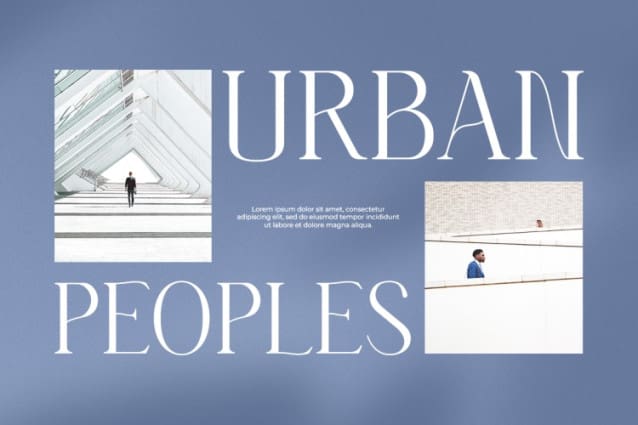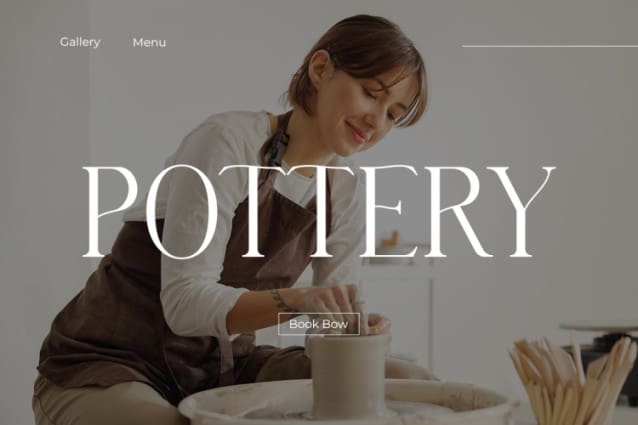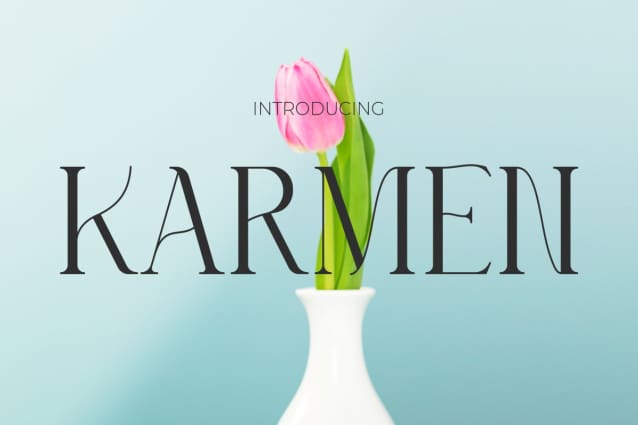
Karmen Font
Karmen Font – Elevate Your Brand with the Essence of Luxury. With elegance epitomizing luxury and perfection, it is the perfect manifestation of beauty in the world of typography. Designed with captivating detail, this font brings an unparalleled impression when used for enticing titles across various branding platforms. Every stroke and curve in its letters expresses grandeur, making every word formed with Karmen feel like a towering work of art. For brands seeking an identity reflecting exclusivity and sophistication, it is an undeniable choice.
When the eyes meet titles crafted with the Karmen font, there’s a sense of reverence that passes through. The elegance and firmness radiating from each character make your message unforgettable. More than just a font, it is a pathway to modern typographic civilization that combines the essence of luxury with the practicality of brand communication. From magazine layouts to visual identity designs, Karmen is here to elevate standards and set your brand apart, ensuring that the first impression made will be etched in the memory of every observer.